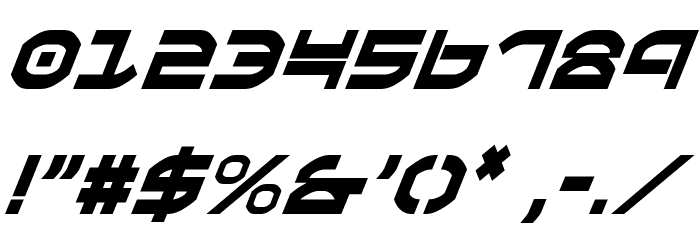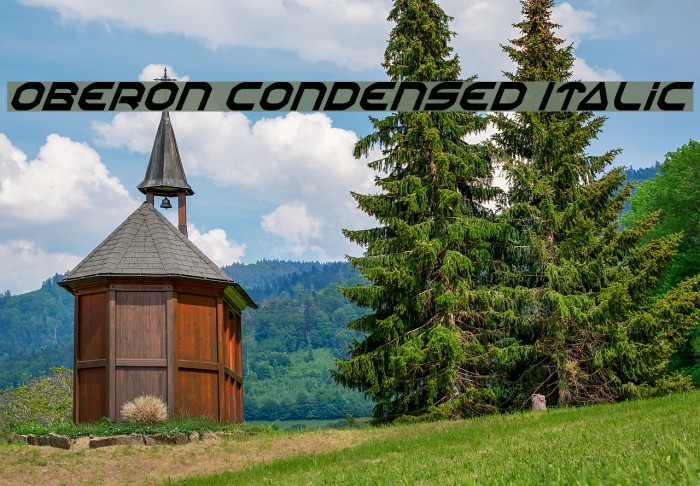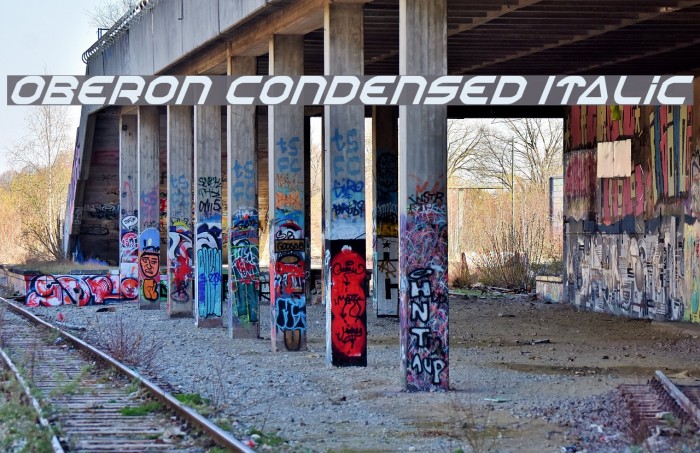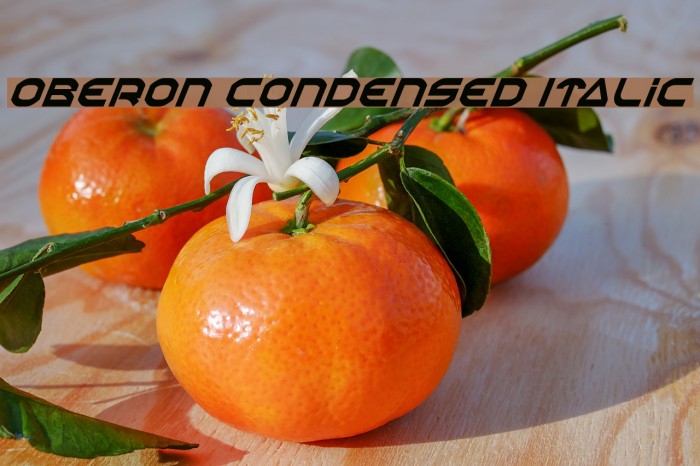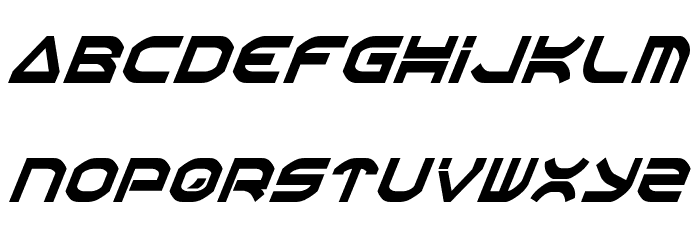
Oberon Condensed Italic Font
Oberon Condensed Italic Description
This font features a bold, italicized style with a condensed width, giving it a sleek and modern appearance. The characters are designed with sharp angles and clean lines, creating a futuristic and dynamic look. The uppercase and lowercase letters maintain a consistent slant, enhancing the italic effect. Numbers and special characters are crafted to match the overall aesthetic, ensuring uniformity across all glyphs. The font's condensed nature allows for efficient use of space, making it suitable for headlines and titles where impact is essential.
| Proposed Projects | Ideal for futuristic branding, tech-related projects, or dynamic poster designs. |